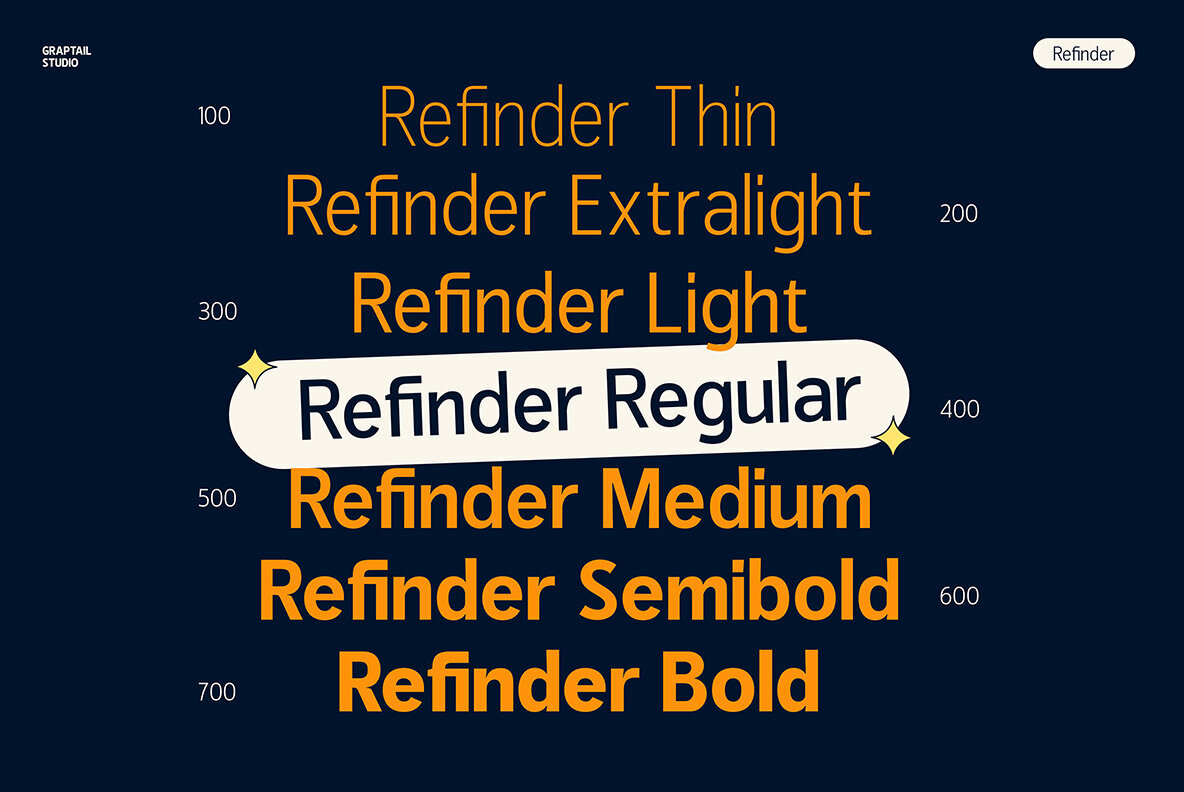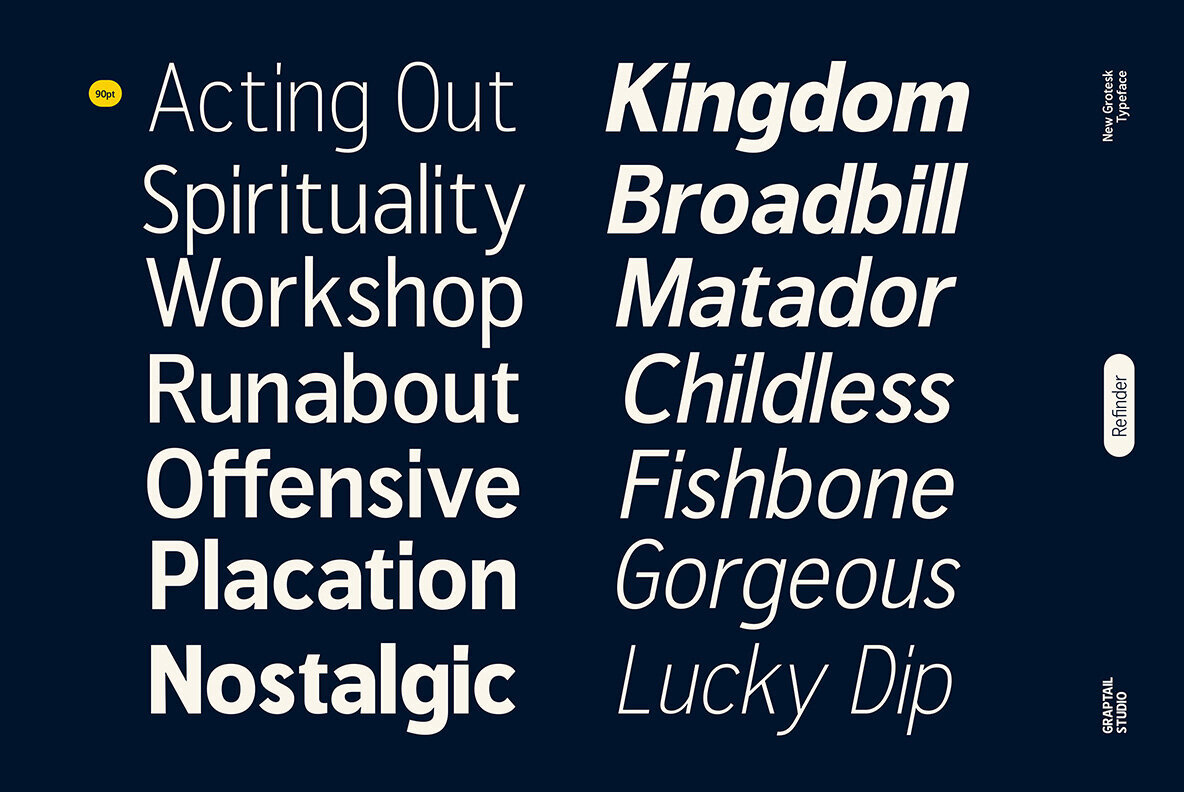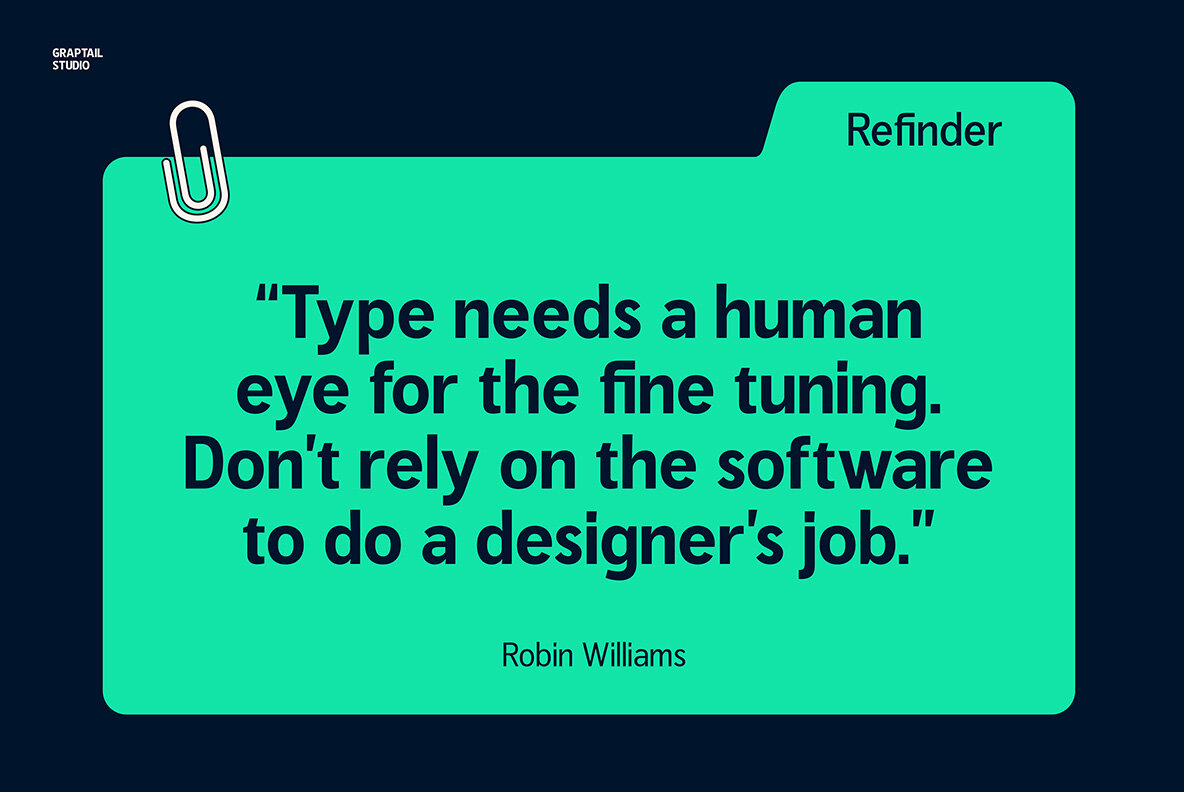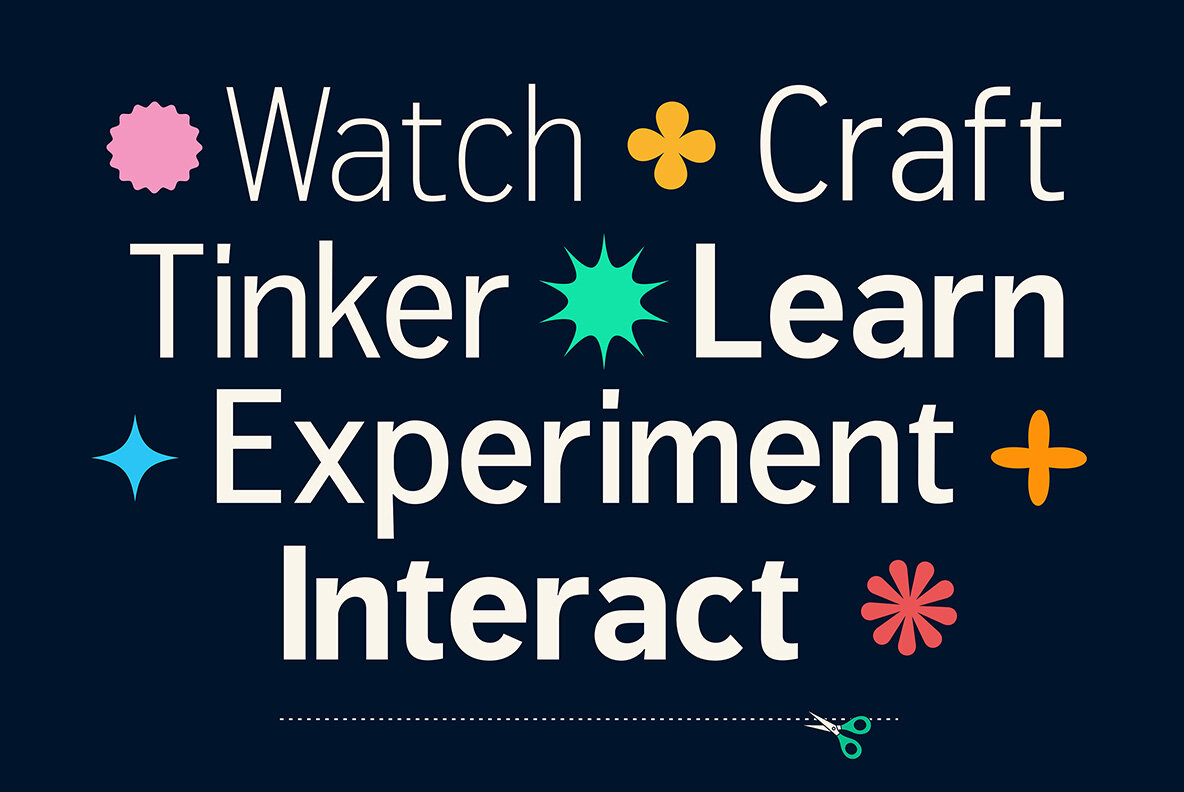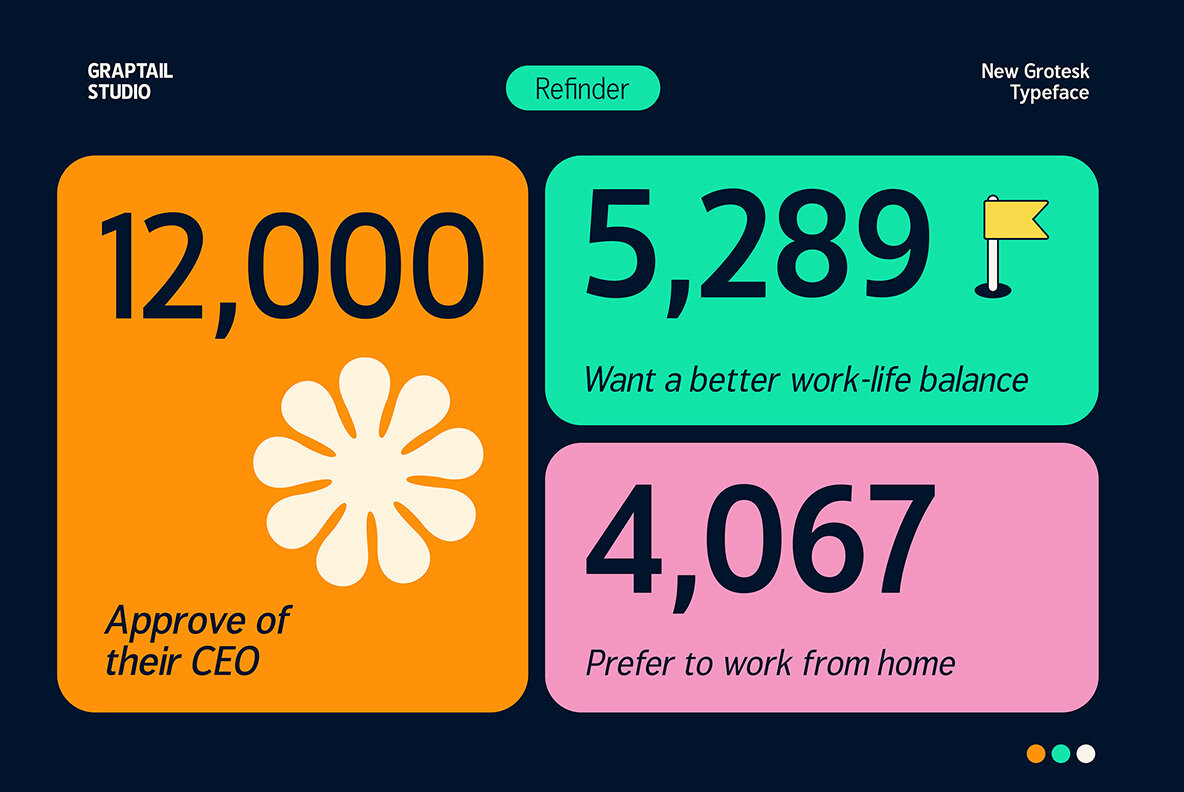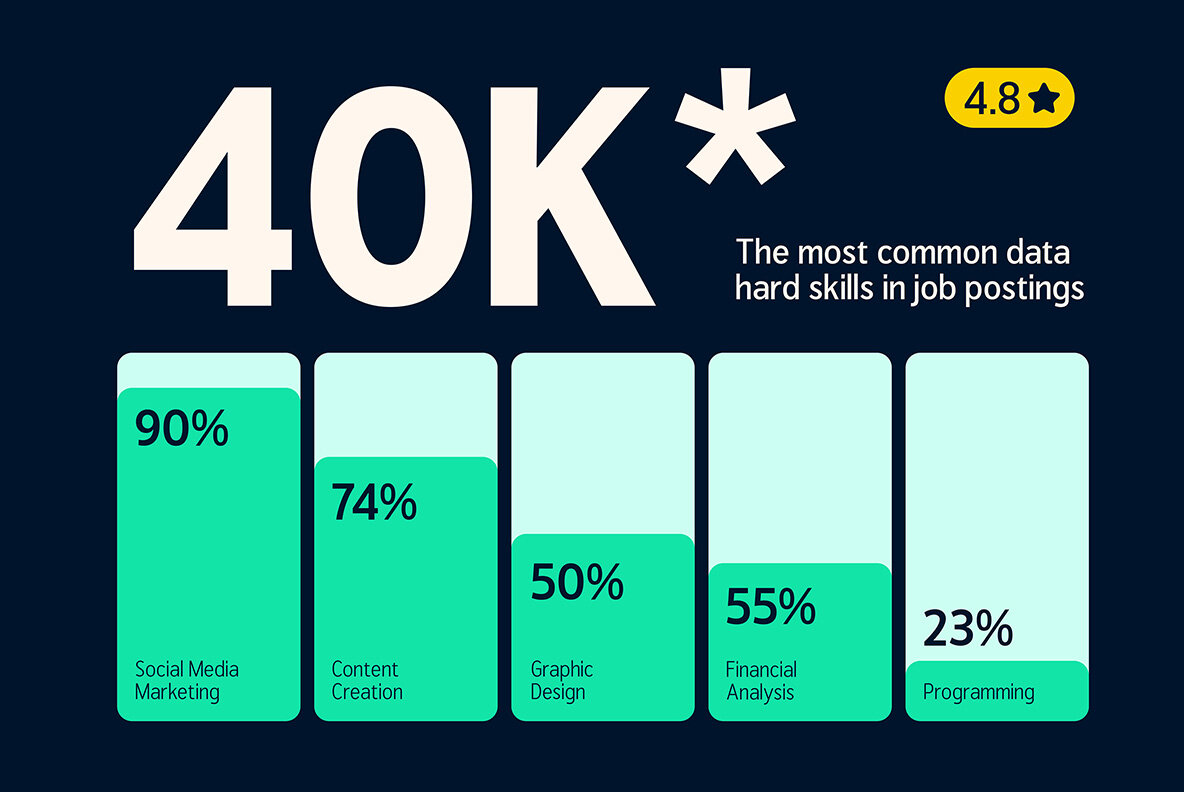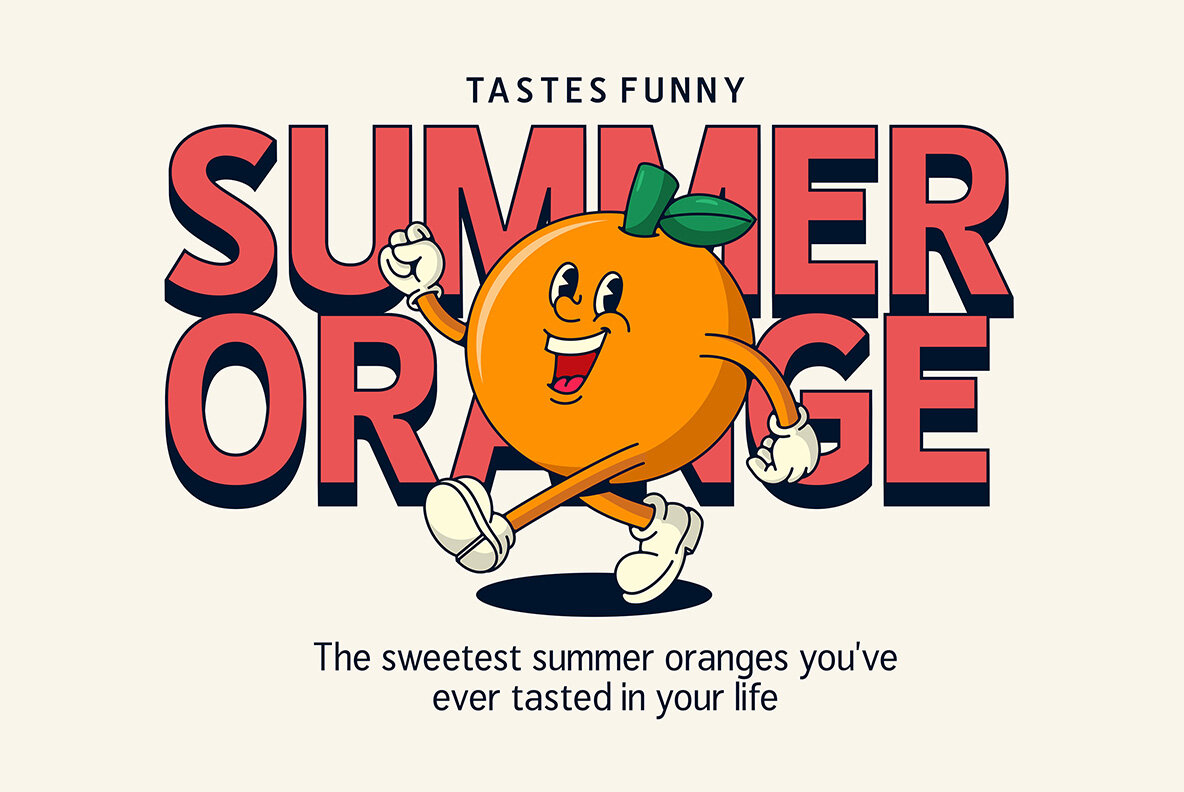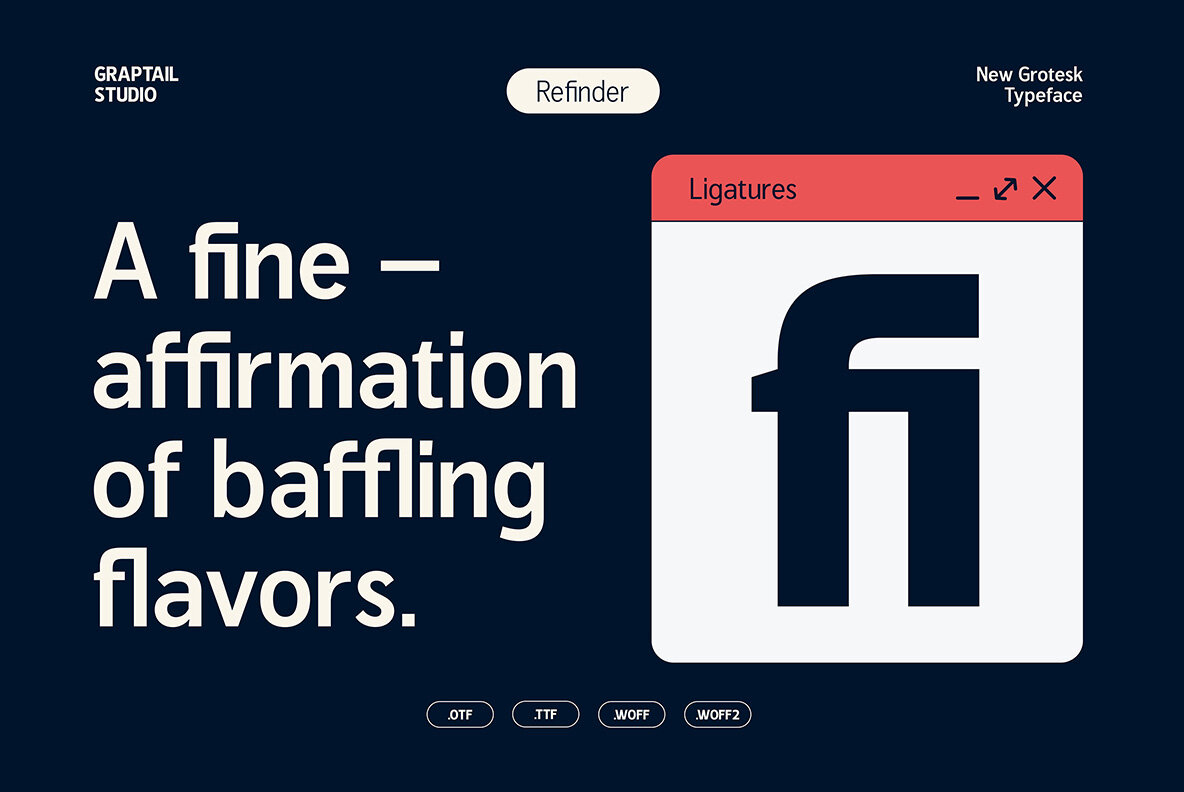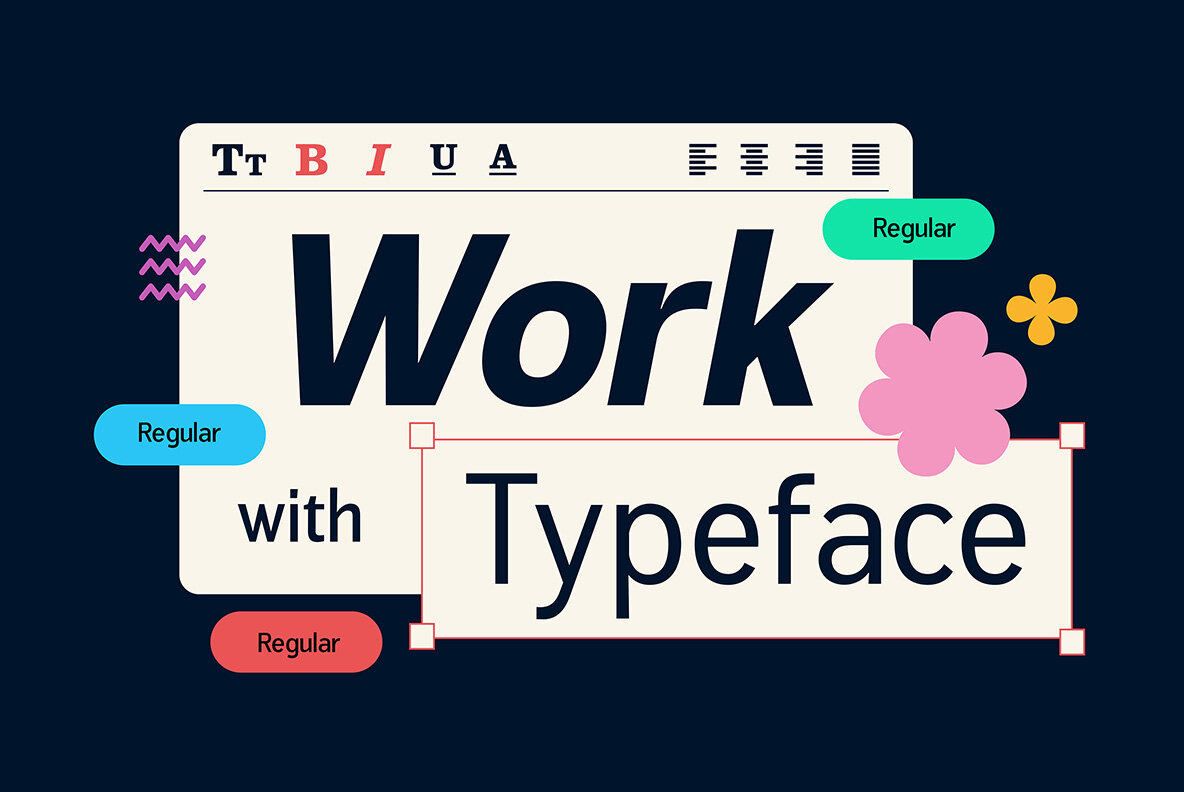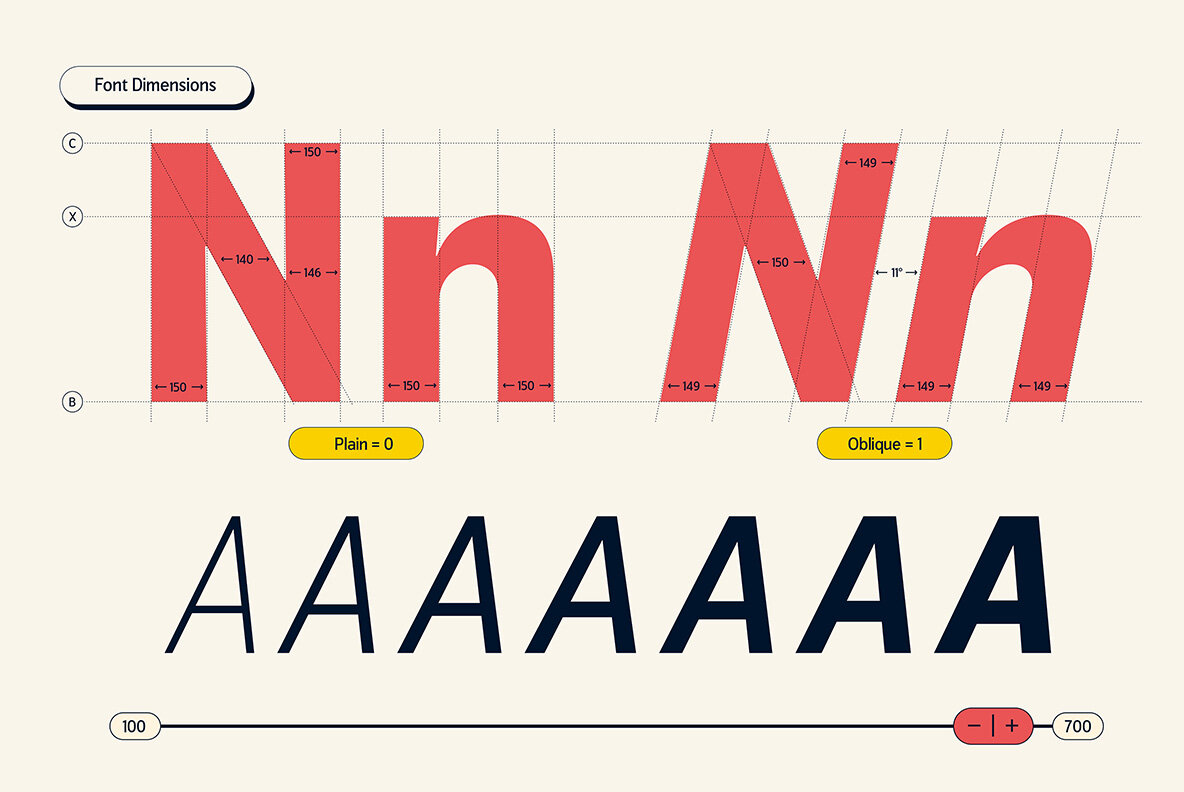
Refinder Font
Refinder is a typeface inspired by text letters found in minimalist layouts, whose design uses the latest digital font technology. This versatile font comes in a variety of widths making it an ideal solution to meet every design need. Having 2 different styles and widths, Finder also includes alternative characters that provide more design options. All these features make this font a great choice for graphic designers and art directors, logos, wordmarks, short texts, etc. Refinder is a sans-serif typeface with modern proportions and a straight edge. It comes in 7 weights, ranging from Thin to Bold.